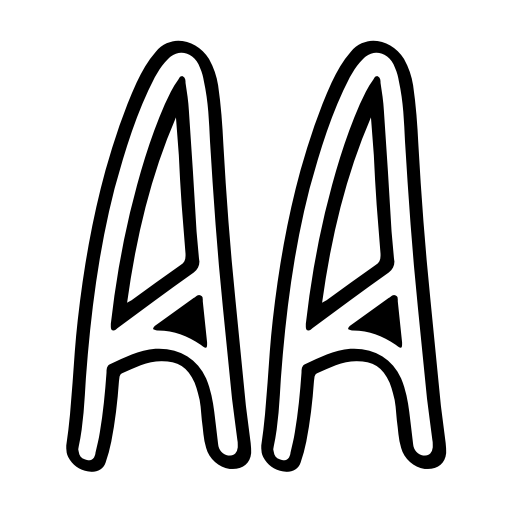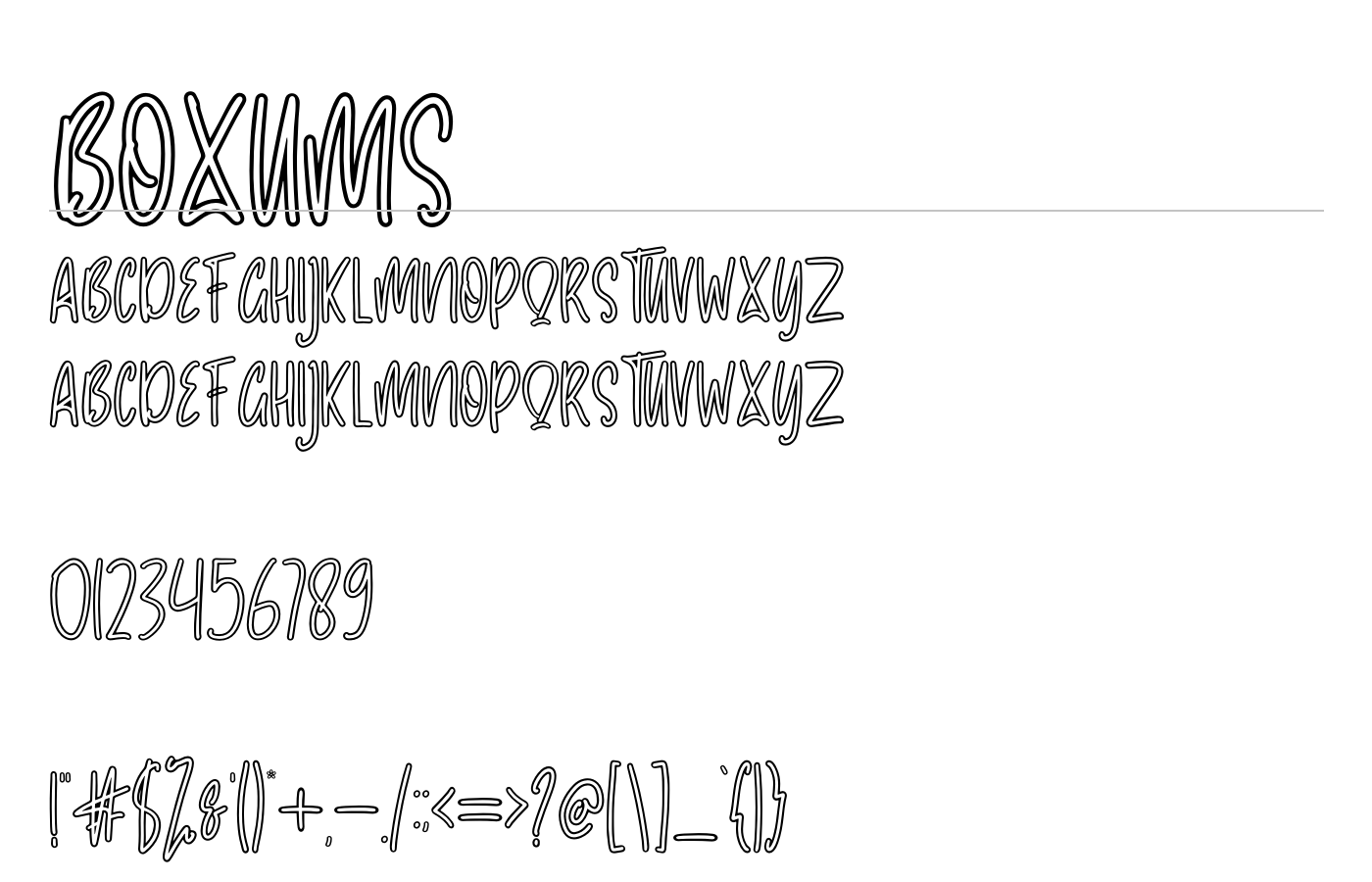
Boxums Font is a playful and quirky sans serif with a hand-drawn, outlined style that feels light and fun. Its narrow letterforms and uneven strokes give it a casual, artistic vibe perfect for creative projects, children's designs, and informal branding. This font works best in headlines, logos, or display uses where a lively, unique personality is desired.
Boxums Font
About Boxums Font